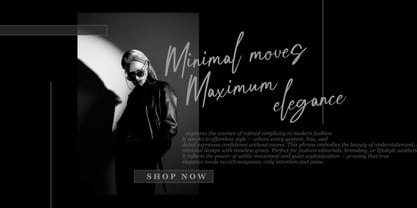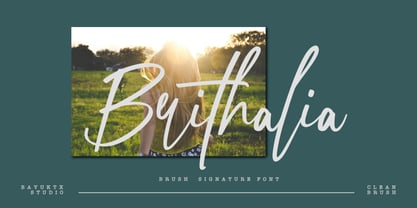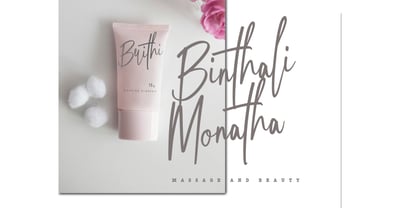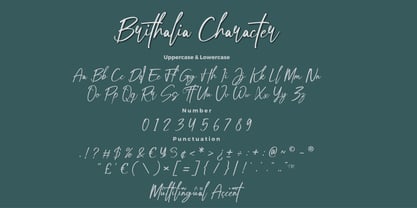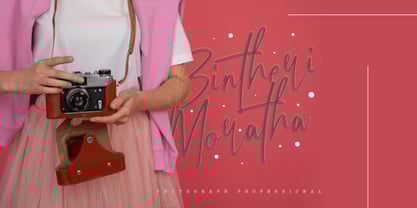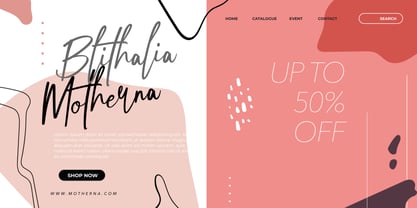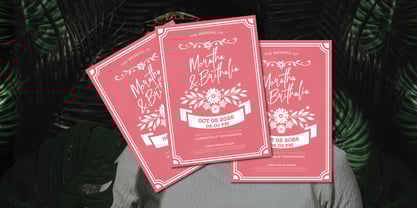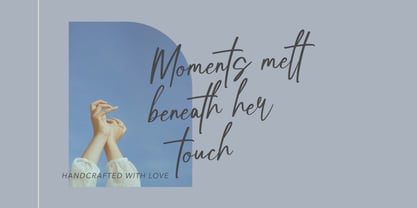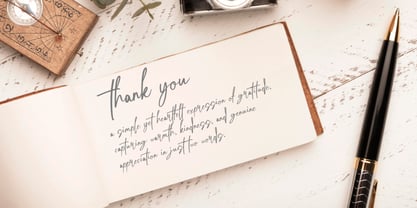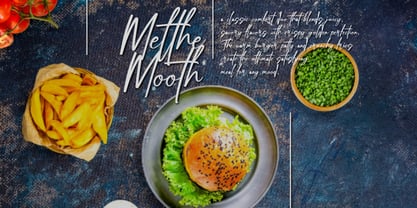
Brithalia
by Bayuktx
The Brithalia Font Family was designed by Bayu Aji Fais Mursid and published by Bayuktx. Brithalia contains 1 styles. More about this family
Brithalia Brush Signature Font embodies graceful flow and effortless beauty — a perfect blend of modern elegance and handcrafted charm. With its smooth brush strokes and fluid signature style, this typeface brings a sense of sophistication and warmth to every design. Each letter dances naturally with refined movement, reflecting the art of personal touch and authentic handwriting. Ideal for branding, fashion logos, invitations, and lifestyle projects, Brithalia adds a soft yet confident statement to your creative work. Key Features : * Uppercase & Lowercase * Numerals & Punctuation * Multilingual Support * PUA Encoded & OpenType Features Suitable For : * Feminine Branding & Logo Design * Wedding Invitations & Greeting Cards * Photography & Lifestyle Projects * Beauty Products & Fashion Labels * Social Media Posts & Quote Designs With Brithalia Brush Signature Font, your words shine with timeless grace and modern allure.
Designers: Bayu Aji Fais Mursid
Foundry: Bayuktx